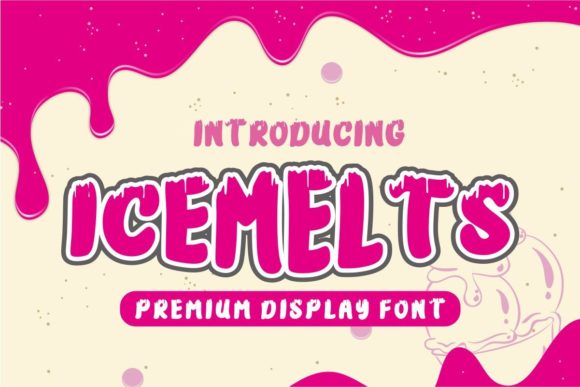
Indulge in the tantalizing embrace of Icemelts, a font that elegantly intertwines the icy allure of winter with the sweet indulgence of ice cream. Each stroke whispers a tale of frosty delight, inviting you to savor the invigorating fusion of flavors that dance upon your visual senses.
Icemelts is more than just a font; it's a culinary adventure that transports you to a realm where your taste buds tingle with anticipation. Picture yourself sipping on a frosty milkshake, enveloped in a symphony of flavors that burst like tiny snowflakes on your tongue. Or imagine biting into a freshly baked cookie, its warm embrace melting away your inhibitions as you succumb to the sweetness of the moment.
With Icemelts, you can capture the essence of these delectable experiences and translate them into captivating designs that tantalize the eyes and evoke a symphony of emotions. Whether it's a playful logo for your favorite ice cream parlor or an eye-catching packaging design for your artisanal chocolates, Icemelts has the power to transform your creations into delectable masterpieces.
This font is your passport to a world of limitless possibilities, where your imagination is the only boundary. Dive into the frosty depths of Icemelts and emerge with designs that are as irresistible as a scoop of your favorite ice cream on a hot summer day.